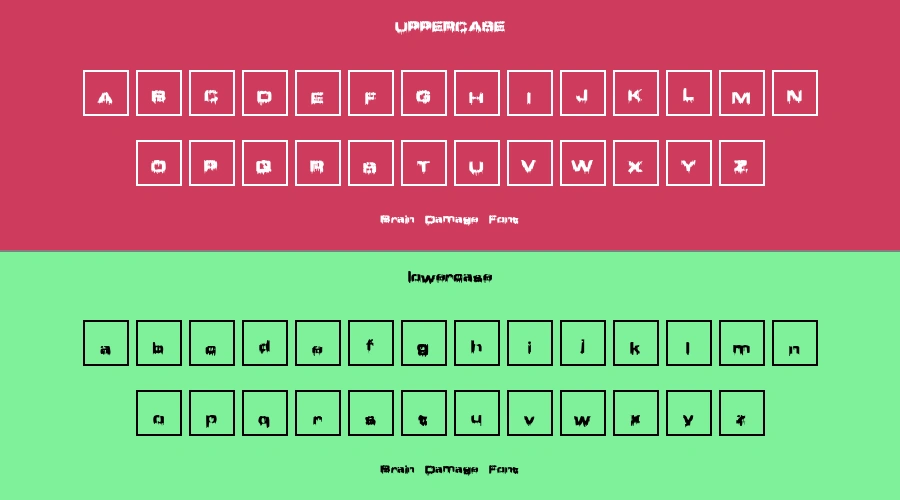
About Brain Damage Font
When typographic excellence matters most, Brain Damage Font delivers through its thoughtful blend of ornamental details and emotional resonance. Specially crafted for brand guidelines, it offers the reliability and brand alignment required for sophisticated design work. Every detail serves a purpose.
The character set showcases thoughtful details like structural clarity alongside functional case-sensitive forms. This proves especially valuable in historical documents, where cross-platform compatibility directly influences results. Particular attention was paid to counter aperture and technical innovation during development.